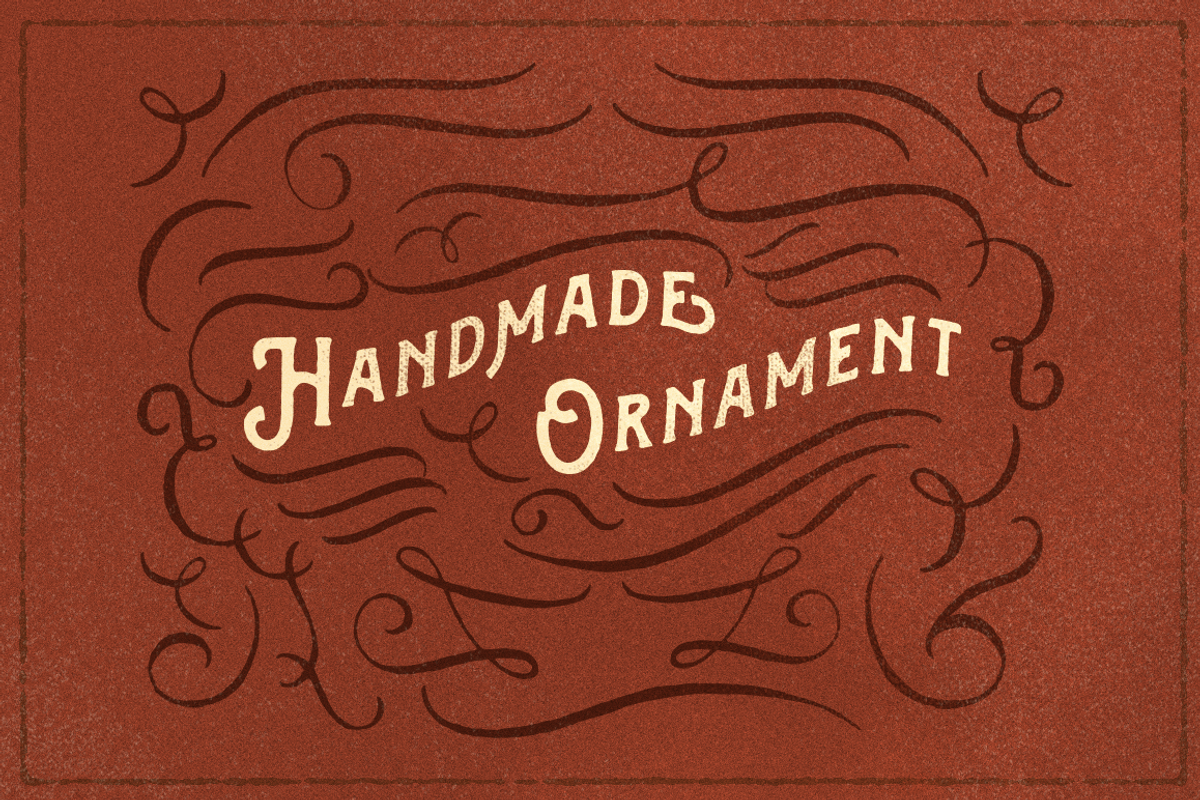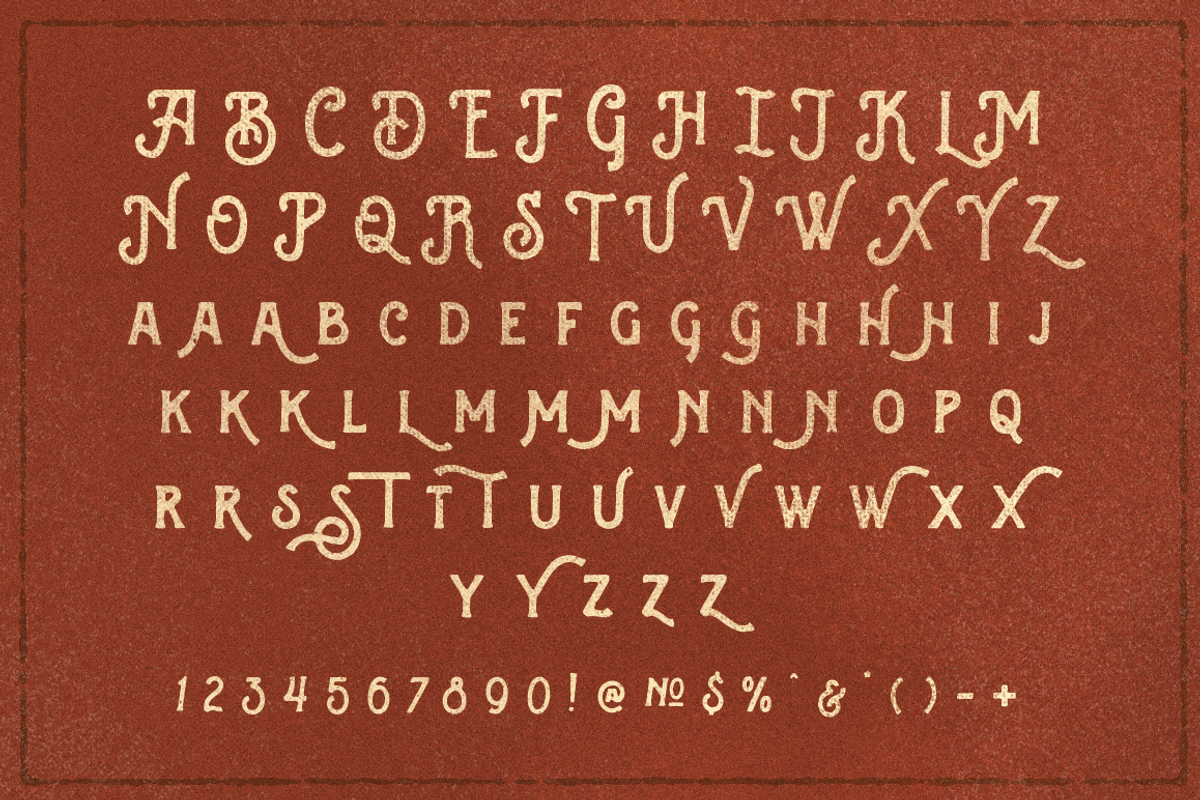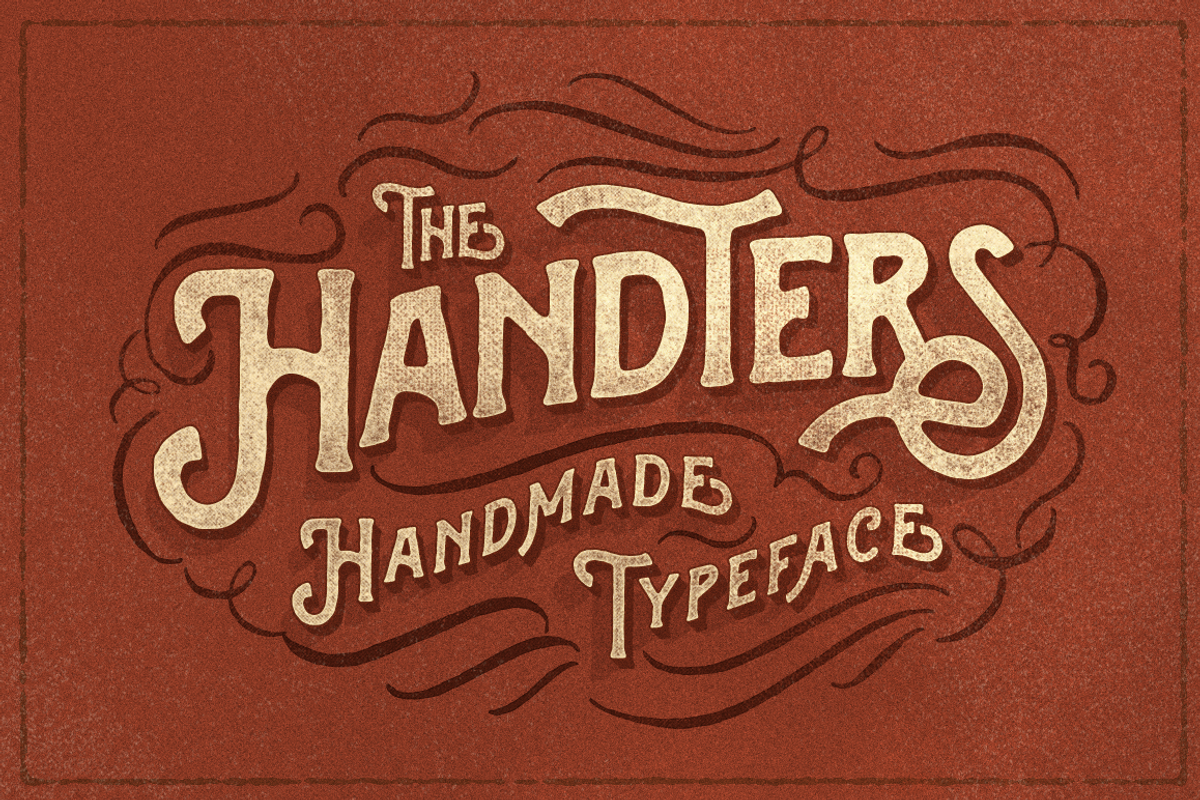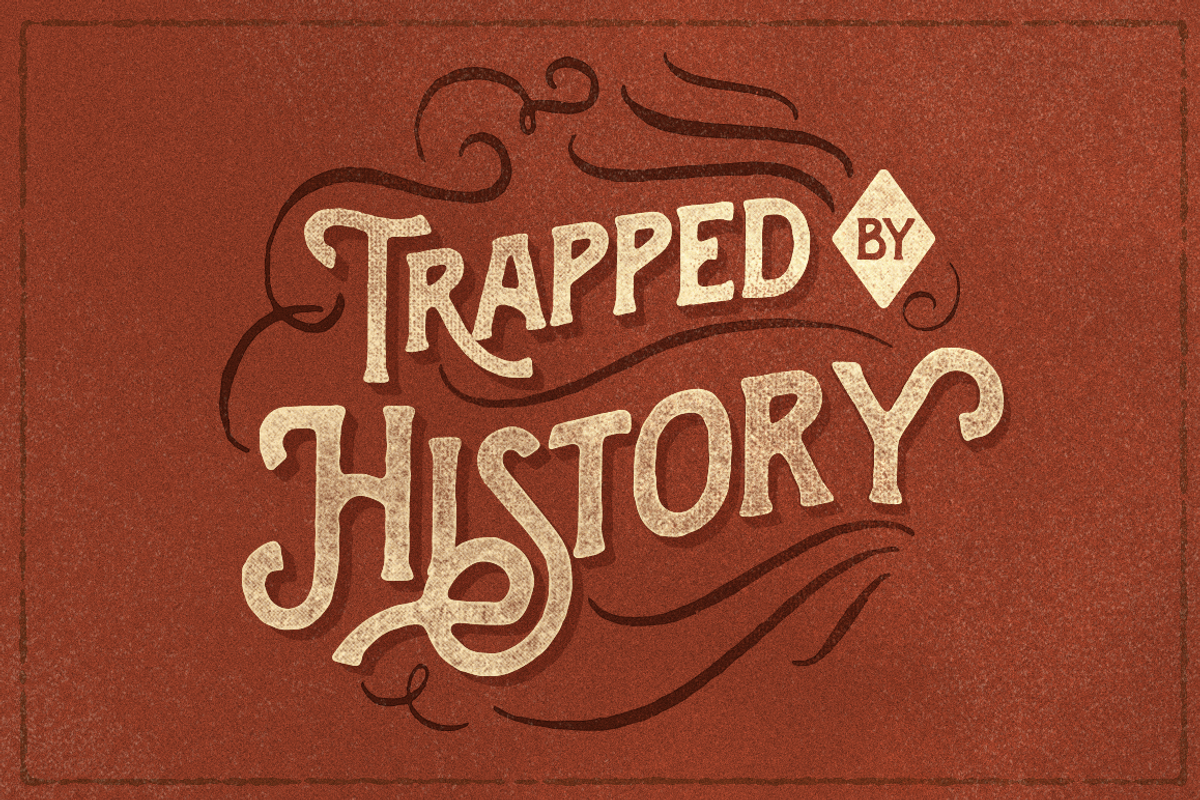
Handters typeface
Handters typeface by Ilham Herry is a font selected for branding, posters, packaging, typography.
- Plus OpenType features with Stylistic Alternates and Contextual Alternate in some characters that allows you to mix and match pairs of lette
Why Handters typeface is worth a look
Handters typeface by Ilham Herry fits naturally into Branding, posters, packaging, typography.